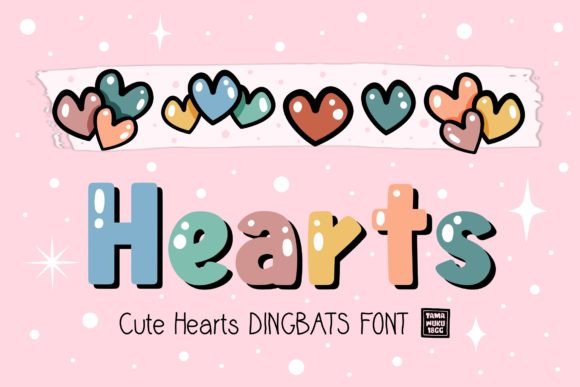
Cute Hearts Font: The Perfect Addition to Your Design Projects
If you’re looking for a font that can add a touch of romance and whimsy to your design projects, look no further than Cute Hearts. This adorable dingbats font is perfect for a variety of applications, from logos and wall art to signs, cards, and more. In this article, we’ll take a closer look at Cute Hearts and explore its many uses.
What is Cute Hearts Font?
Cute Hearts is a romantic dingbats font that features a collection of heart-shaped designs and symbols. The font is made up of a wide range of characters, including hearts, flowers, and other decorative elements that are sure to add a touch of sweetness to any design project.
One of the things that sets Cute Hearts apart from other fonts is its unique and playful style. The font features a mix of simple and intricate designs, making it perfect for a wide range of applications. Whether you’re looking to create a romantic logo or a whimsical art print, Cute Hearts is the perfect choice.
Uses for Cute Hearts Font
Cute Hearts is a versatile font that can be used in a variety of ways. Here are just a few ideas to get you started:
- Logos: Cute Hearts is the perfect font for creating romantic and feminine logos. Use it to create a logo for a wedding planning business, a bakery, or a boutique.
- Wall Art: Create beautiful wall art with Cute Hearts. Use the font to create a stunning piece of typography or a decorative wall decal.
- Signs: Cute Hearts is a great font for creating signs for special events, such as weddings, baby showers, and Valentine’s Day.
- Cards: Use Cute Hearts to create beautiful and unique greeting cards for any occasion.
- Art Prints: Create stunning art prints with Cute Hearts. Use the font to create a beautiful piece of typography or a decorative design.
- T-Shirts: Cute Hearts is a great font for creating custom t-shirts. Use it to create a romantic and feminine design that’s perfect for a special occasion.
- Coloring Pages: Use Cute Hearts to create beautiful and fun coloring pages for kids and adults alike.
Benefits of Using Cute Hearts Font
There are many benefits to using Cute Hearts in your design projects. Here are just a few:
- Unique Style: Cute Hearts has a unique and playful style that’s sure to set your design projects apart from the rest.
- Versatility: Cute Hearts can be used in a wide range of applications, from logos and wall art to signs and cards.
- Customization: Cute Hearts can be customized to fit your specific needs. Use it to create a unique and personalized design that’s all your own.
Tips and Tricks for Using Cute Hearts Font
Here are a few tips and tricks to keep in mind when using Cute Hearts:
- Experiment with Different Sizes: Experiment with different sizes to find the one that works best for your design project.
- Combine with Other Fonts: Combine Cute Hearts with other fonts to create a unique and interesting design.
- Use in Combination with Images: Use Cute Hearts in combination with images to create a beautiful and eye-catching design.
- Make it Your Own: Don’t be afraid to make Cute Hearts your own. Experiment with different colors, textures, and designs to create a unique and personalized look.